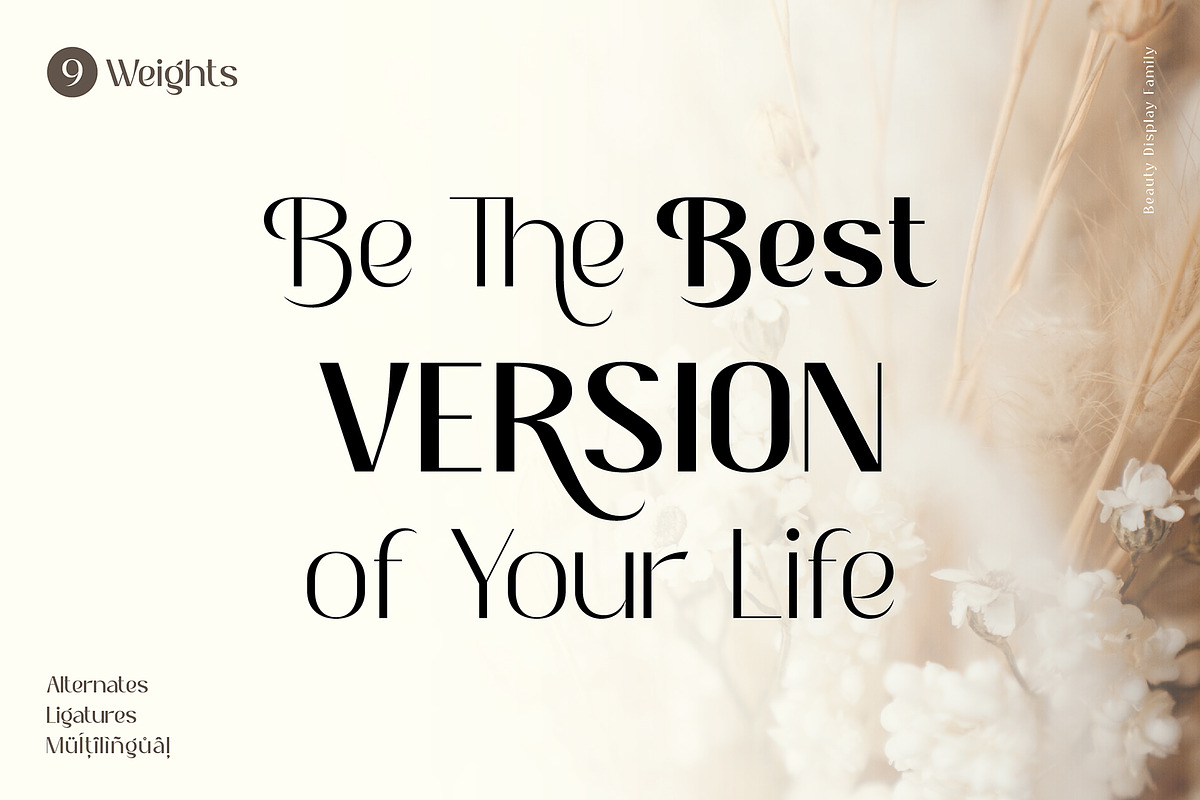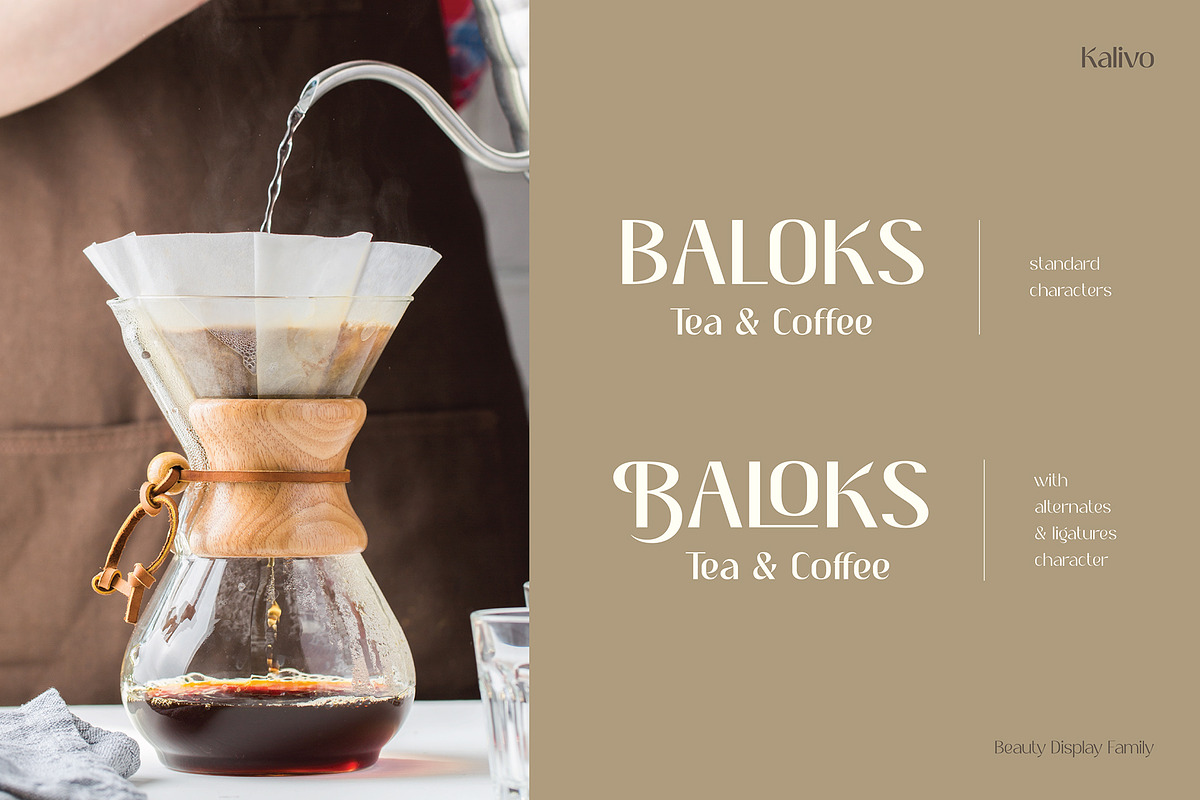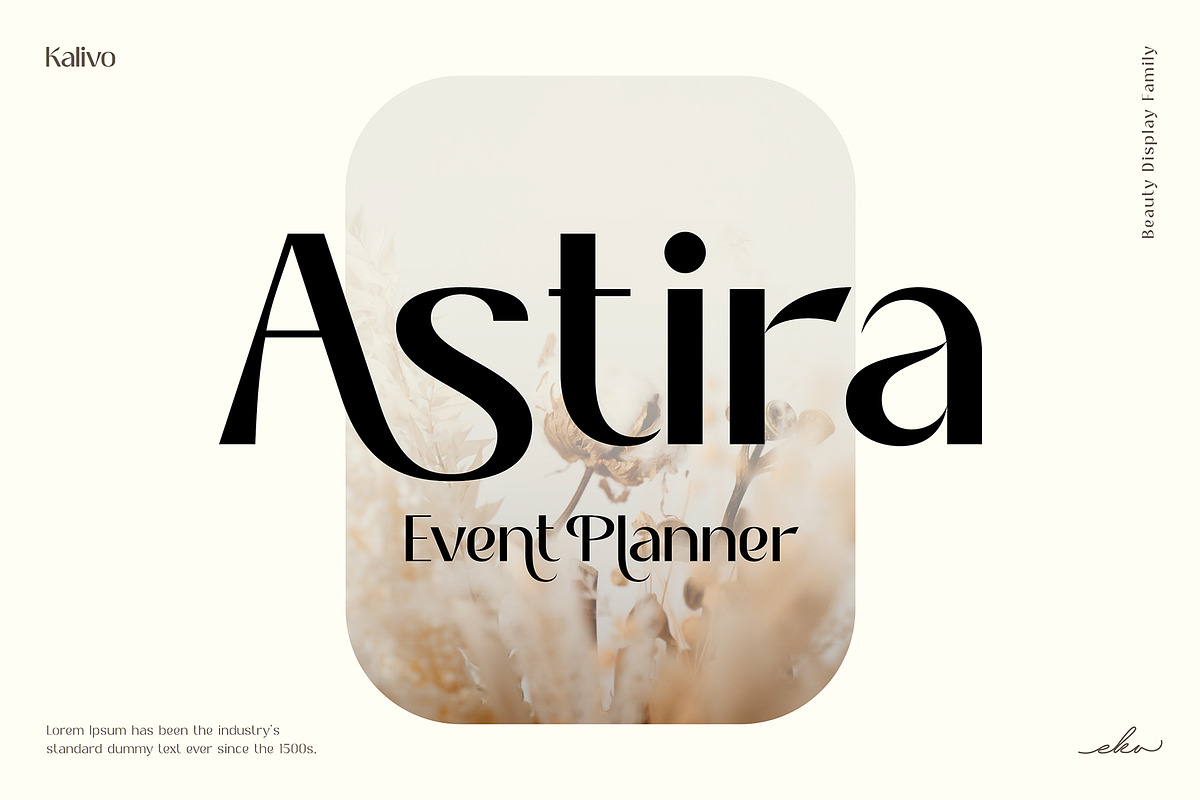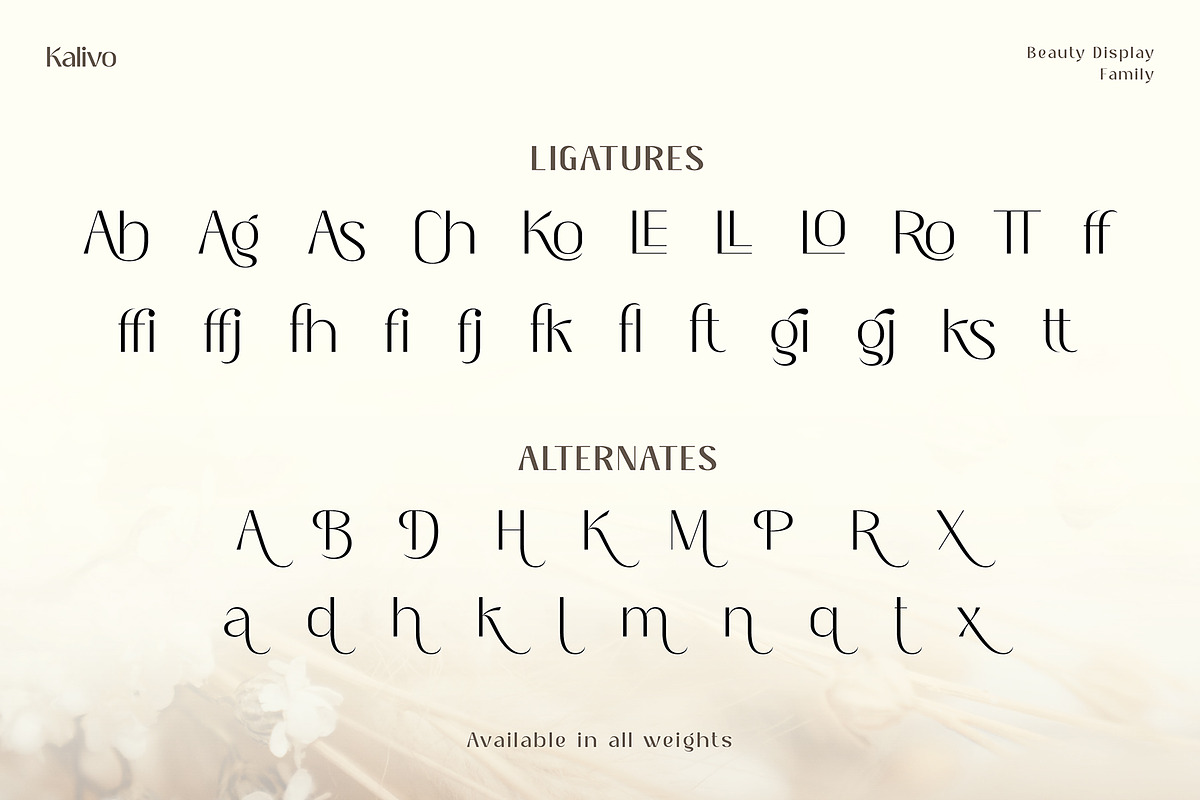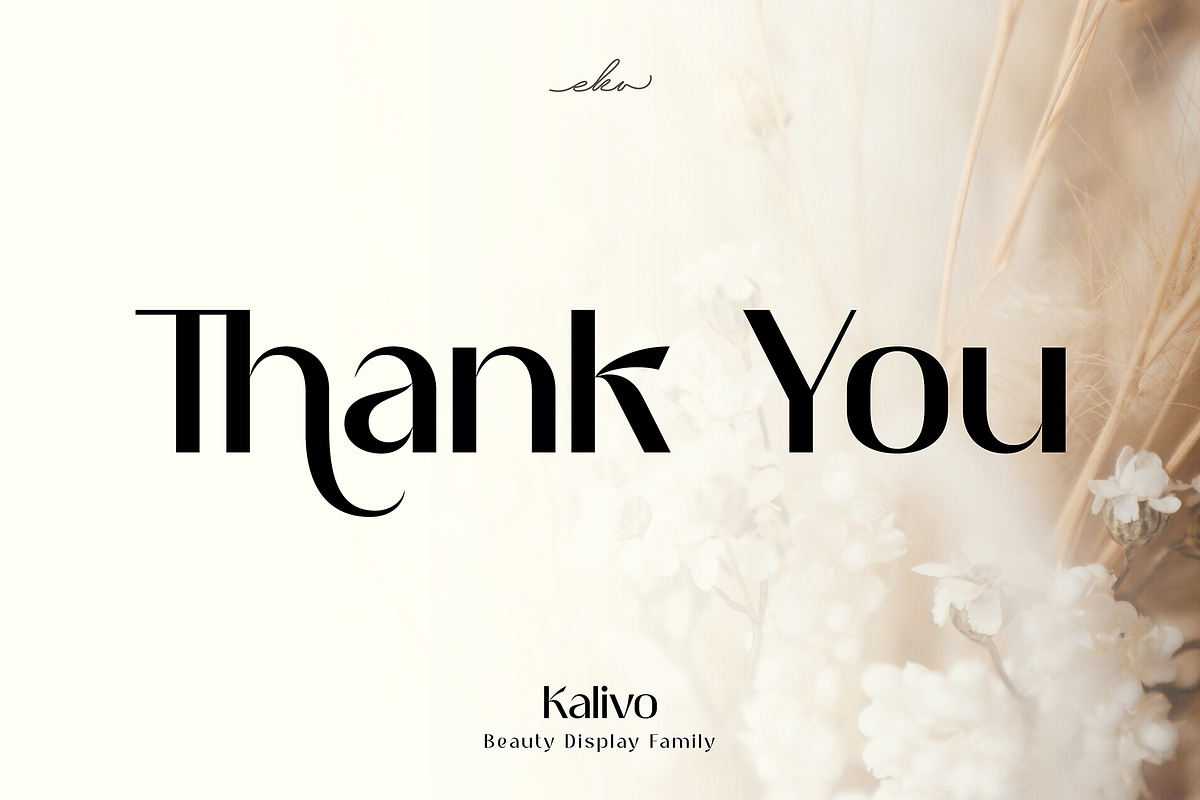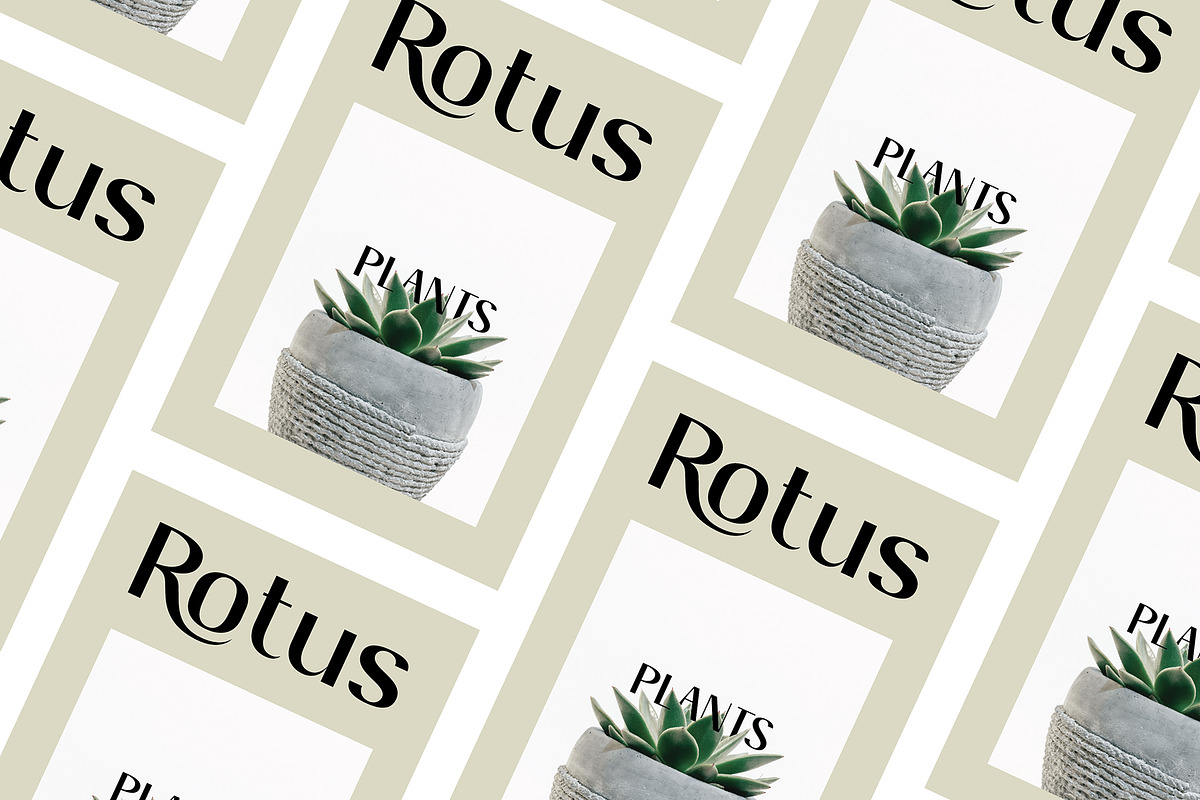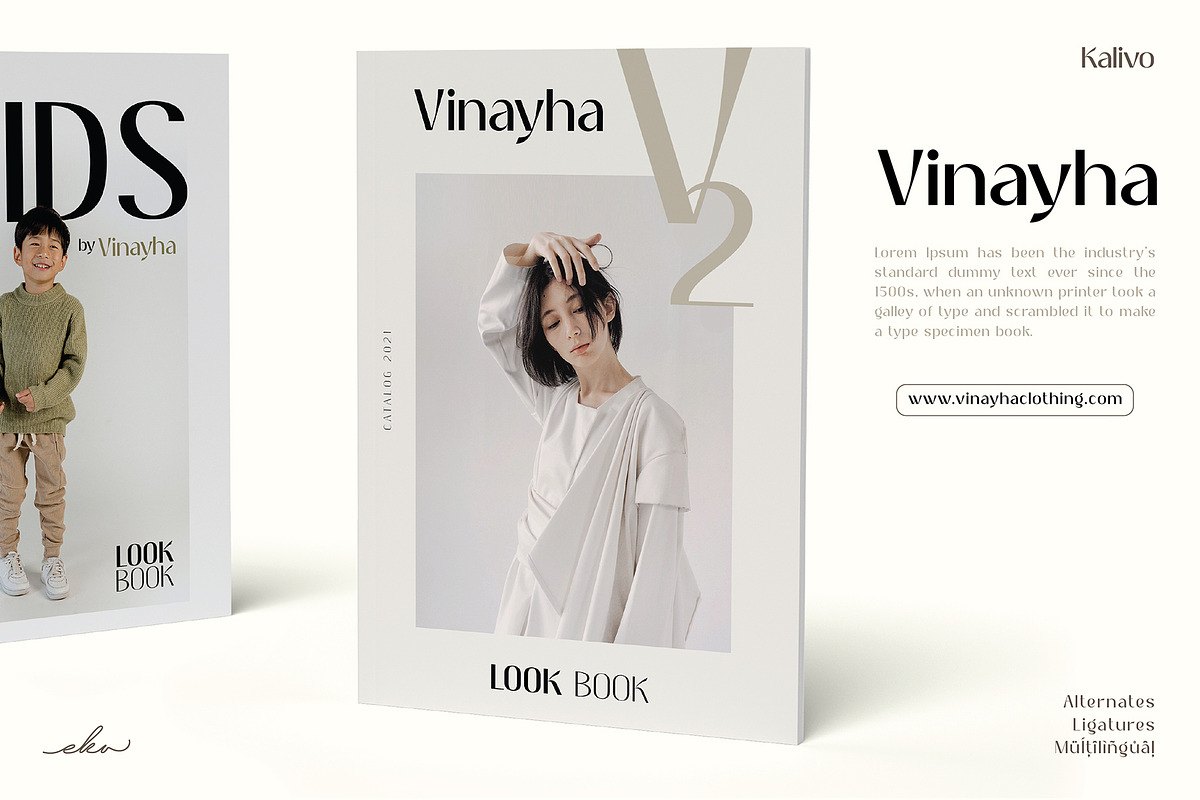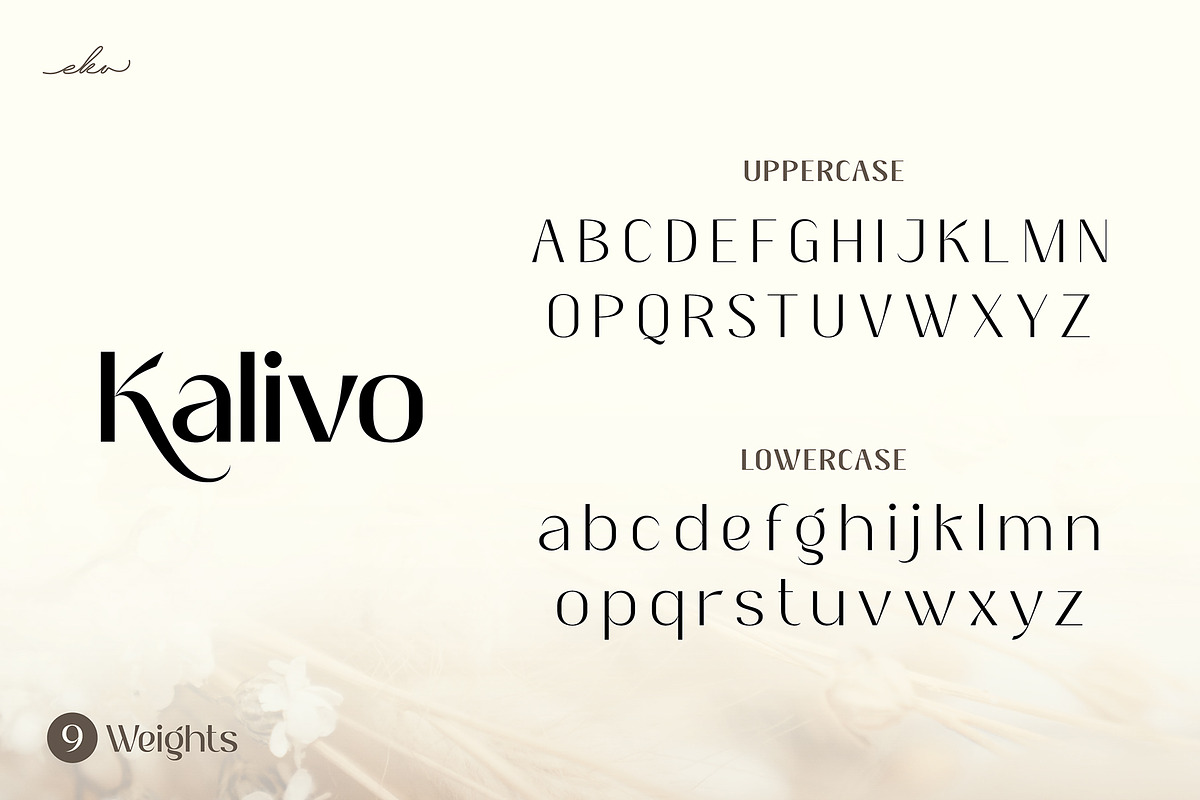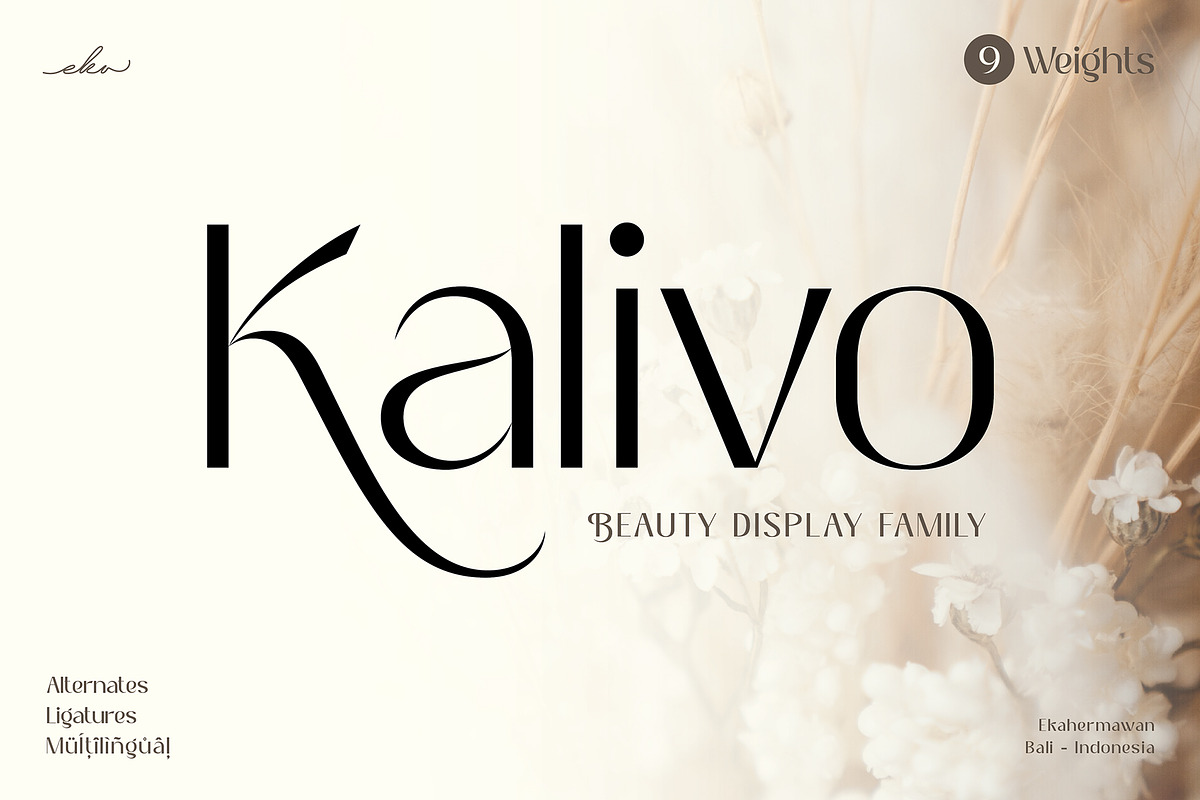
Kalivo - Beauty Display Font
Kalivo is a beauty display family, this high contrast font is great for many different projects such as logo, branding, poster, magazines, labels, merchandise, invitation, presentation, advertising, quotes and so much more! Kalivo also includes alternate characters (PUA Encoded) and ligatures with 9 weights to give you a wide range for create an unique typographic design results.
- OpenType support
- Playfull to use (with ligatures and alternates options)
- Multilingual support, numbers, and currency symbols.